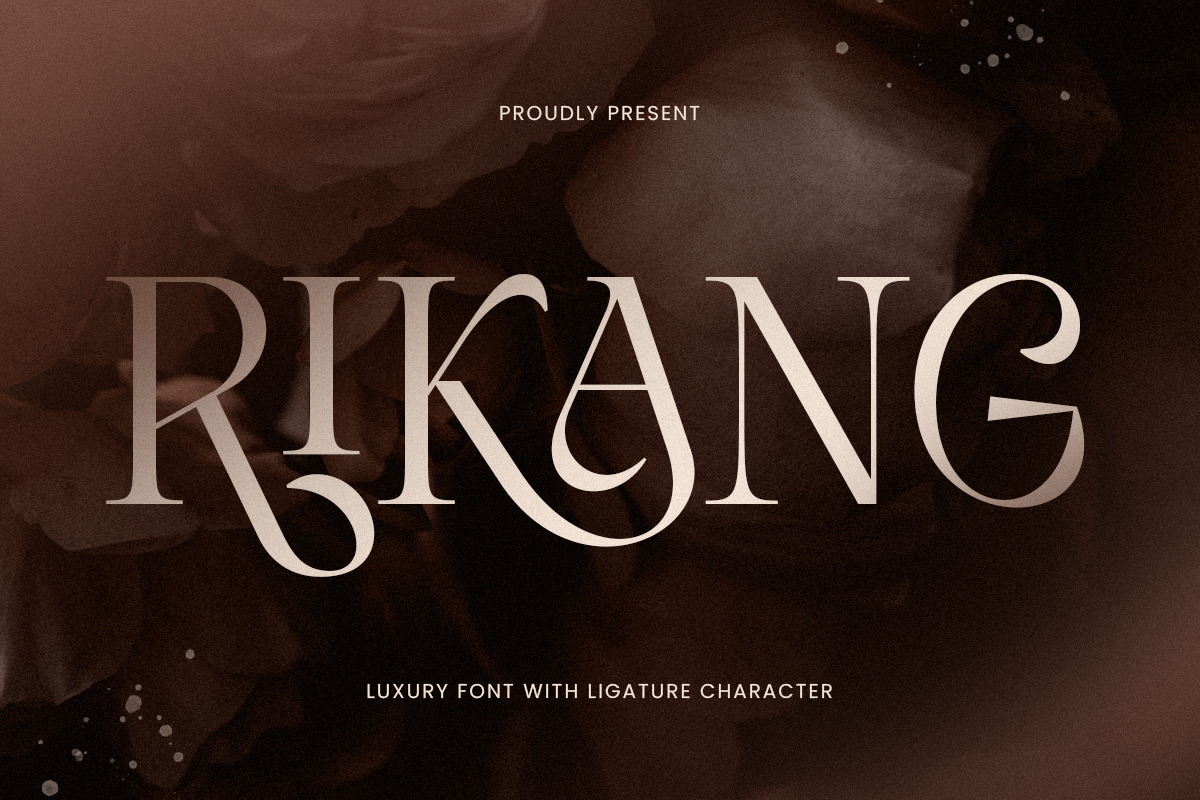
Rikang
-Luxury FontRikang - Luxury Font
Rikang is a luxury font that embodies sophistication and refinement. Its graceful curves and elegant design make it the perfect choice for creating high-end visuals.
Perfect for Upscale Projects
From branding and editorial layouts to wedding invitations and luxury packaging, Rikang enhances the aesthetic of any project. Its timeless style is designed to captivate and inspire.
Sophistication in Every Detail
Rikang stands out with its attention to detail and premium feel. Ideal for designers who want to leave a lasting impression, it’s a must-have for any creative toolkit.
Rikang Luxury Font Features:
Ligature Characters Ready